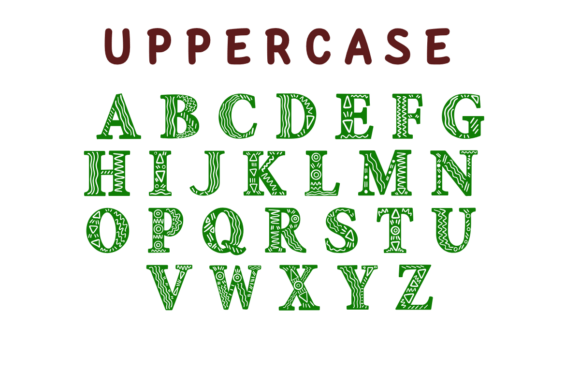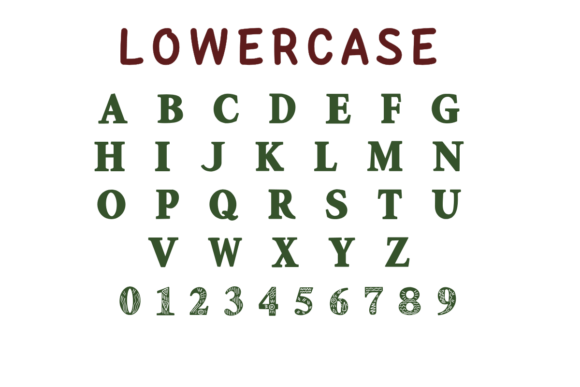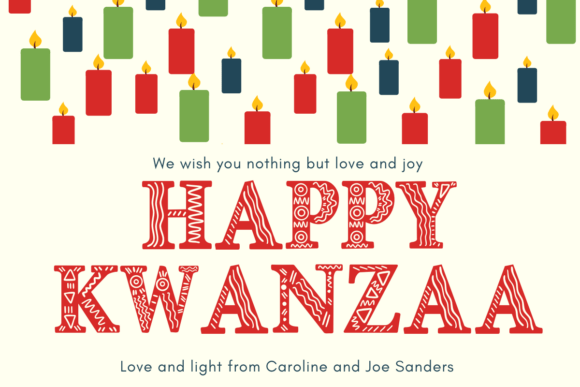
Introduction to Kwanzaa Hand Drawn Font
Kwanzaa Hand Drawn is a richly textured and celebratory decorative typeface, capturing the joyful spirit and cultural patterns of the Kwanzaa holiday.
Featuring bold, hand-drawn letterforms filled with intricate tribal, zigzag, and African-inspired designs, this font instantly adds warmth and authenticity to your work It is perfectly suited for seasonal event invitations, cultural posters, educational materials, greeting cards, and any project focused on celebrating heritage and community.
Key Features of Kwanzaa Hand Drawn Font
Why Choose Kwanzaa Hand Drawn Font?